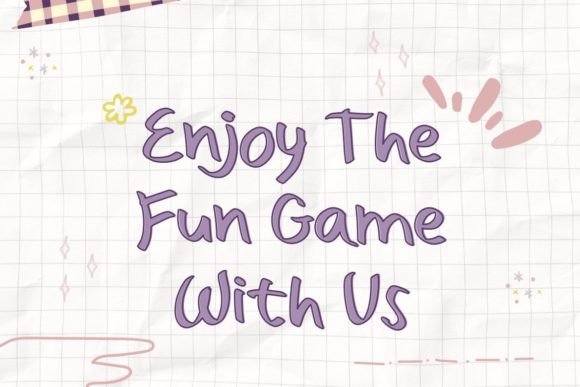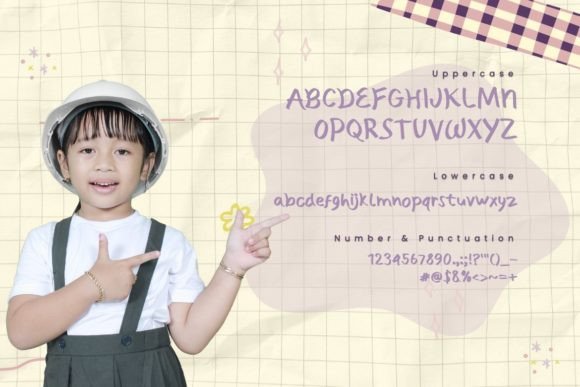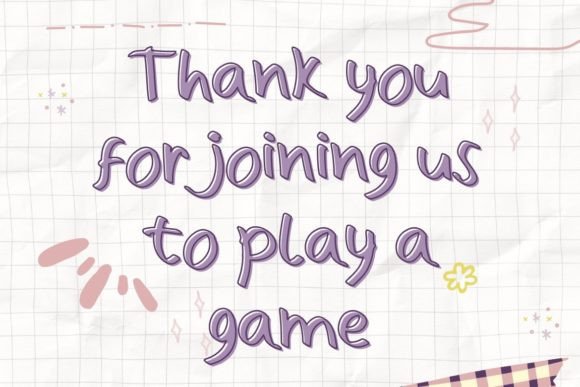
Discover the Charm of Daywiel Font: Adding Whimsy to Your Designs
In the world of typography, fonts play a crucial role in conveying the tone and personality of a design. For designers and crafters looking to add a touch of quirkiness to their projects, the Daywiel font is an excellent choice. This attractive and unbalanced handwritten font brings a sense of whimsy to any design, making it perfect for playful branding, social media graphics, and greeting cards.
The Unique Characteristics of Daywiel Font
Daywiel font stands out from the crowd with its uneven strokes and playful loops. These distinctive features convey a sense of creative spontaneity, giving your designs a carefree and artistic feel. The font’s unbalanced nature adds a touch of humanity, making it relatable and engaging. Whether you’re designing a logo, social media graphic, or greeting card, Daywiel font is sure to add a dash of personality to your project.
Perfect for Playful Branding
For brands looking to establish a playful and creative identity, Daywiel font is an excellent choice. Its whimsical nature makes it perfect for businesses that want to convey a sense of fun and spontaneity. From children’s products to artisanal services, Daywiel font can help you create a brand that stands out from the competition. Use it for logos, business cards, or packaging design to add a touch of quirkiness to your brand.
Elevate Your Social Media Graphics
Social media graphics are an essential part of any online marketing strategy. With Daywiel font, you can create eye-catching and engaging graphics that capture the attention of your audience. Whether you’re designing a Facebook post, Instagram story, or Twitter header, this font is sure to add a touch of personality to your design. Use it to create graphics that are fun, playful, and shareable.
Add a Personal Touch to Your Greeting Cards
For crafters and designers who love creating handmade greeting cards, Daywiel font is a perfect choice. Its whimsical nature makes it ideal for adding a personal touch to your cards. Use it to create custom card designs that are unique and heartfelt. Whether you’re making a card for a birthday, holiday, or special occasion, Daywiel font is sure to make it extra special.
Tips for Using Daywiel Font Effectively
To get the most out of Daywiel font, here are some tips to keep in mind:
- Use it in large sizes to make the most of its playful loops and uneven strokes.
- Pair it with a simple background to make the font stand out.
- Experiment with different colors to add an extra touch of personality to your design.
- Use it sparingly to add emphasis to specific words or phrases.
In conclusion, Daywiel font is a unique and attractive handwritten font that brings a sense of whimsy to any design. Its uneven strokes and playful loops make it perfect for playful branding, social media graphics, and greeting cards. With its creative spontaneity and quirky personality, Daywiel font is sure to add a touch of quirkiness to your projects. So why not give it a try and see how it can elevate your designs?